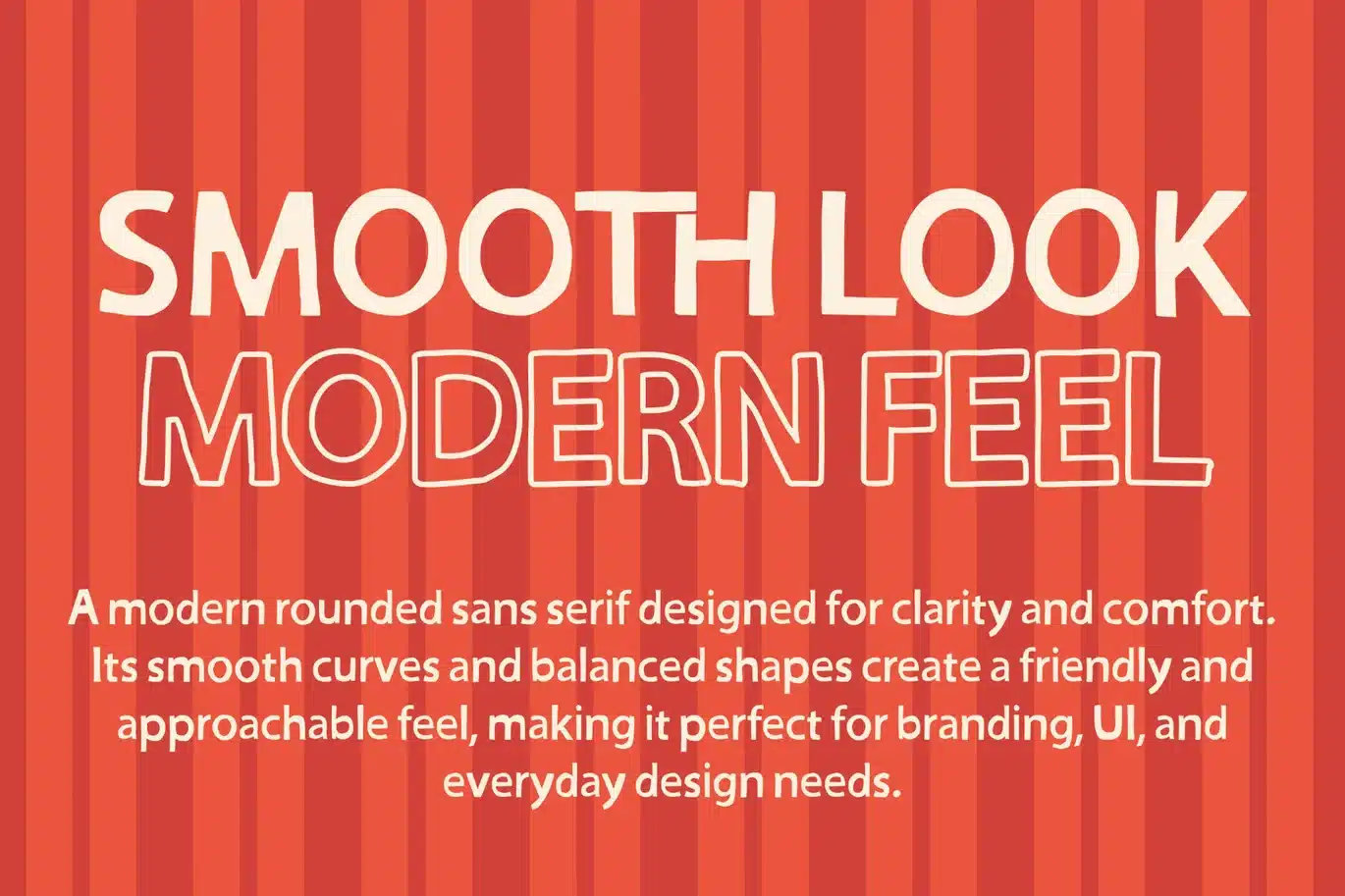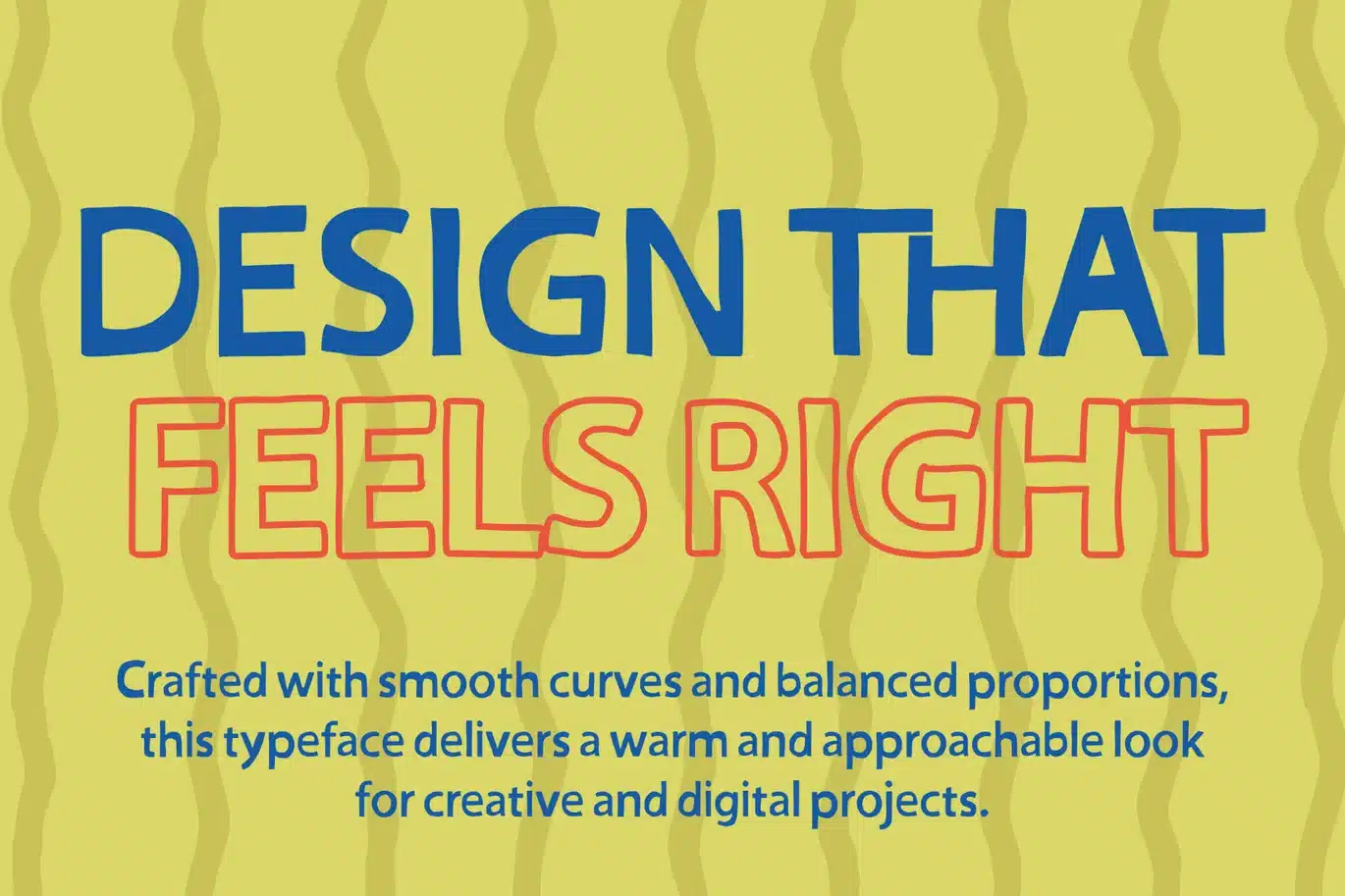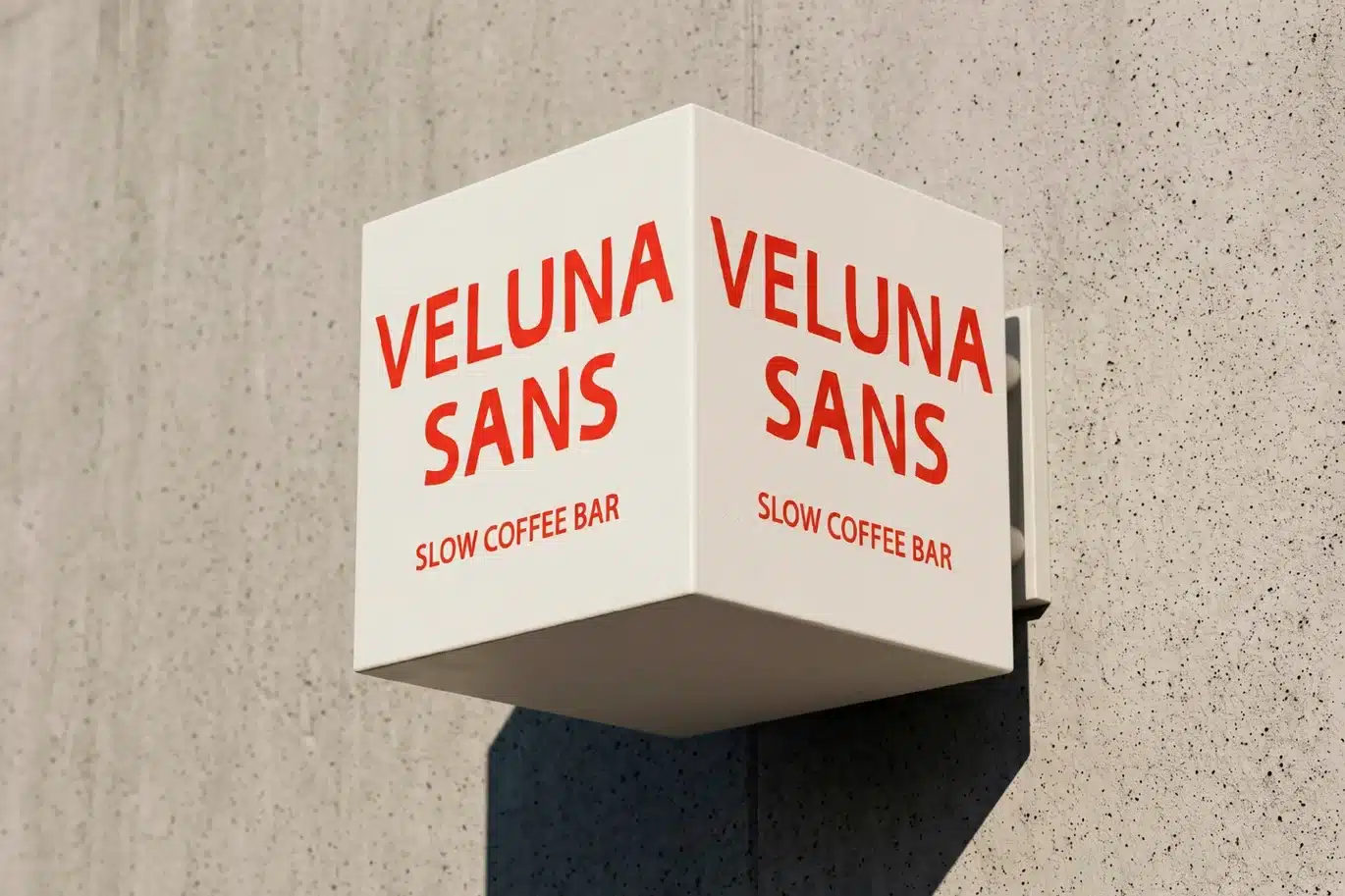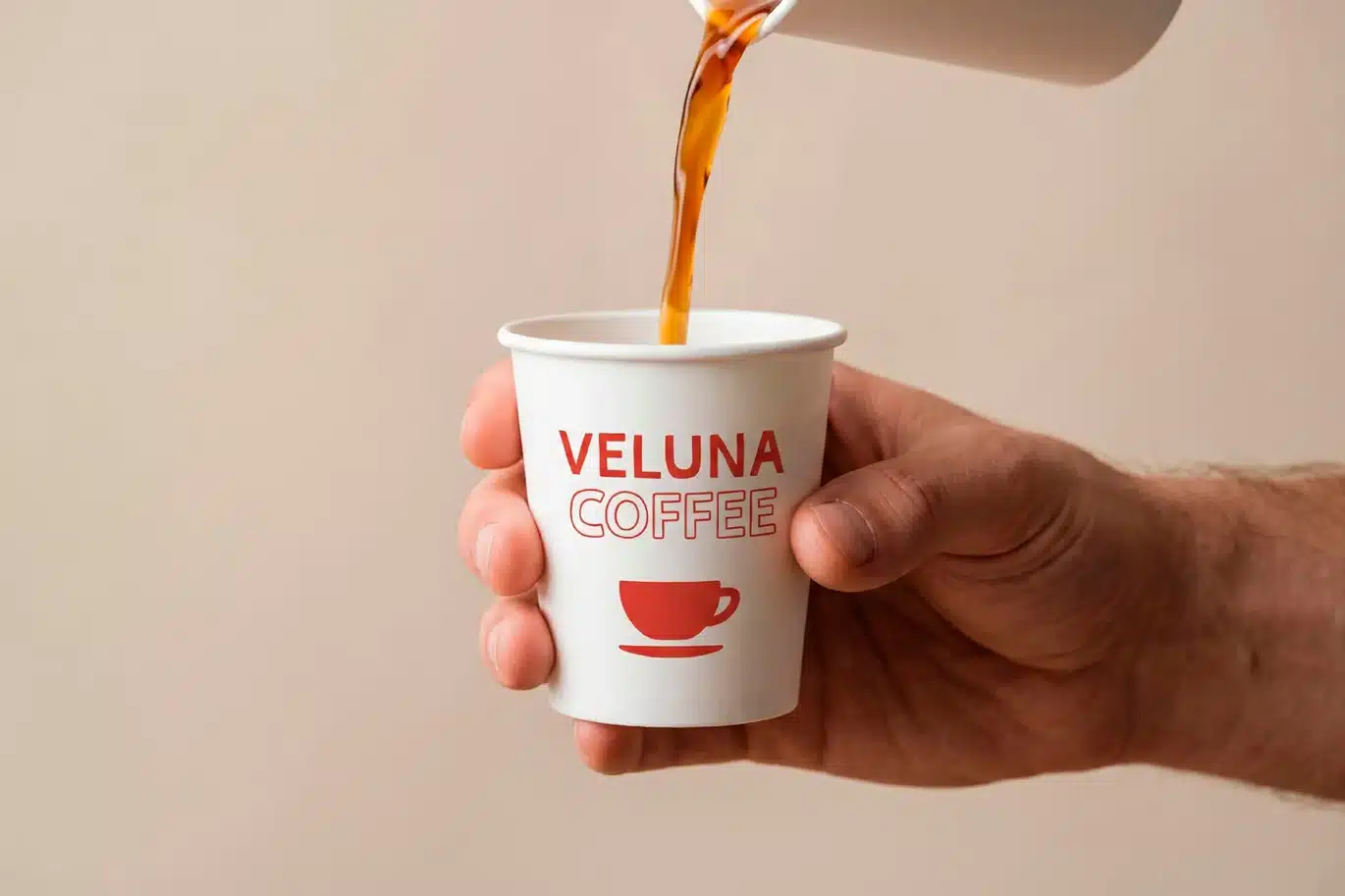
Veluna Sans Font
Veluna Sans is a modern sans serif font featuring regular and outline styles designed to create a clean, versatile, and contemporary visual look. With balanced proportions, smooth curves, and minimalist letterforms, it is perfect for branding, logos, packaging, editorial layouts, social media, and UI design. The combination of solid and outline styles allows you to explore creative layering, contrast, and dynamic typography for both print and digital projects. With ligatures, alternates, and multilingual support, Veluna Sans offers flexibility to craft professional and distinctive designs effortlessly.
- Regular & Outline Styles – Versatile for layering and creative effects
- Ligatures & Alternates – Enhanced typographic flexibility
- Multilingual Support – Supports multiple languages